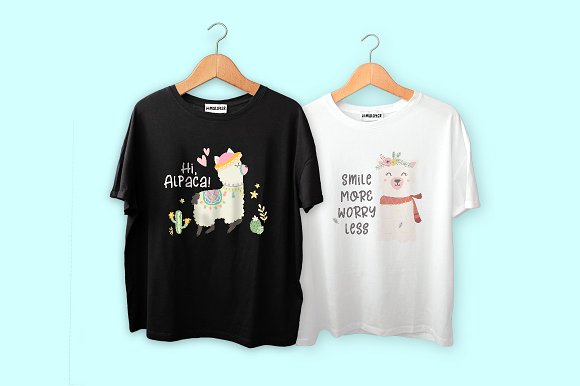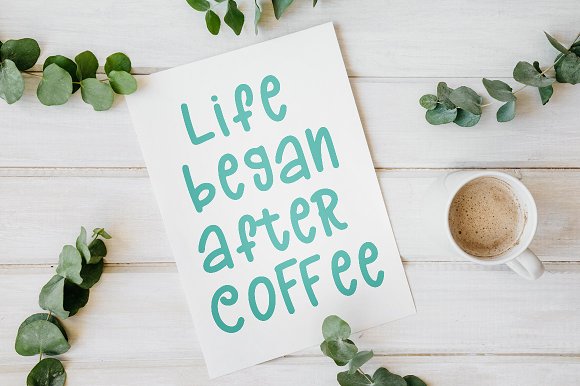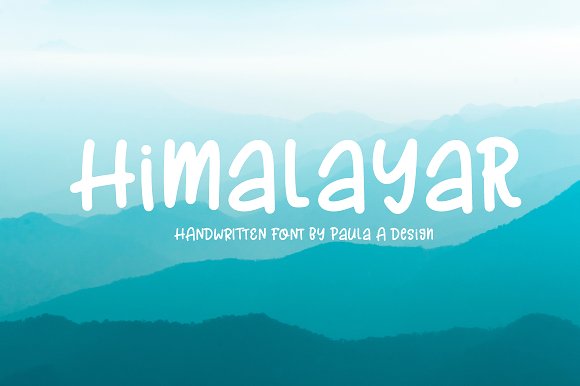
Himalayar Font
Himalayar casual typeface
Designed initially for using in a recipe book as casual comments
Its actually very versatile, and can be used in a variety of project styles where a quick relaxed hand written type is needed.
“Himalayar” Regular (uppercase & lowercase letters, numbers , punctuation and ligature.)